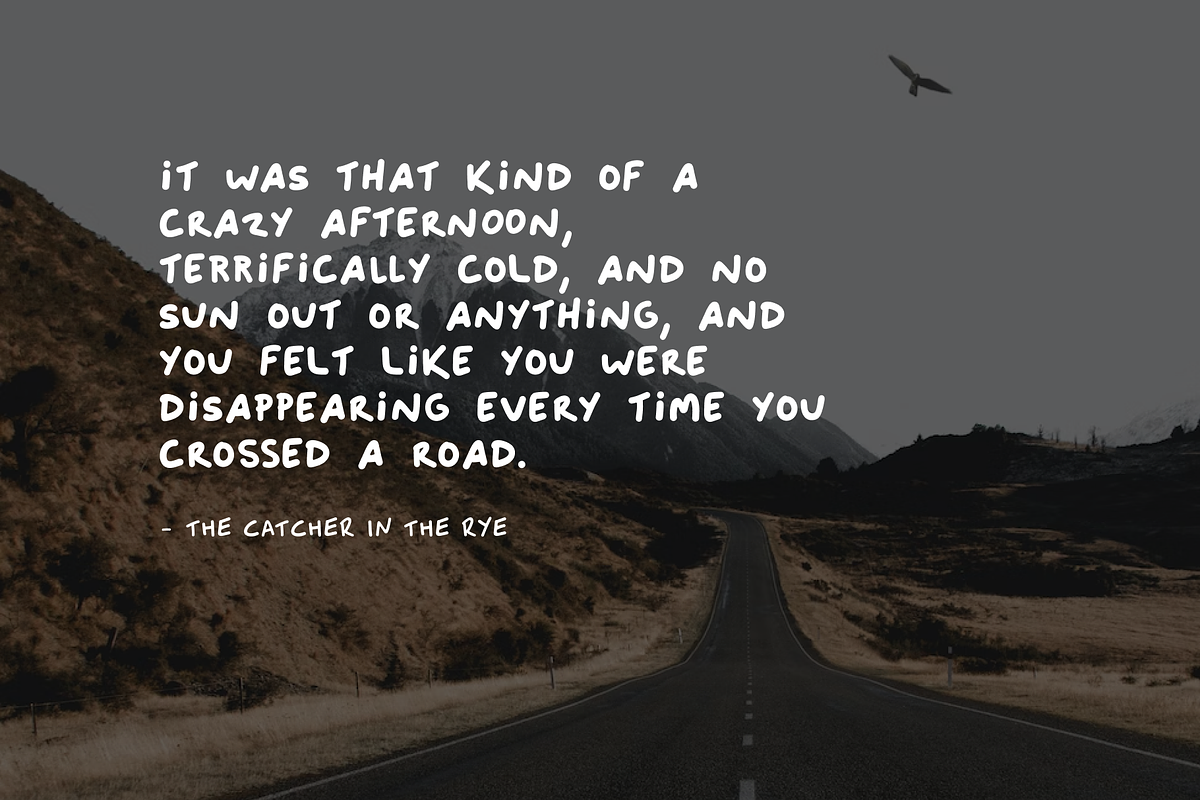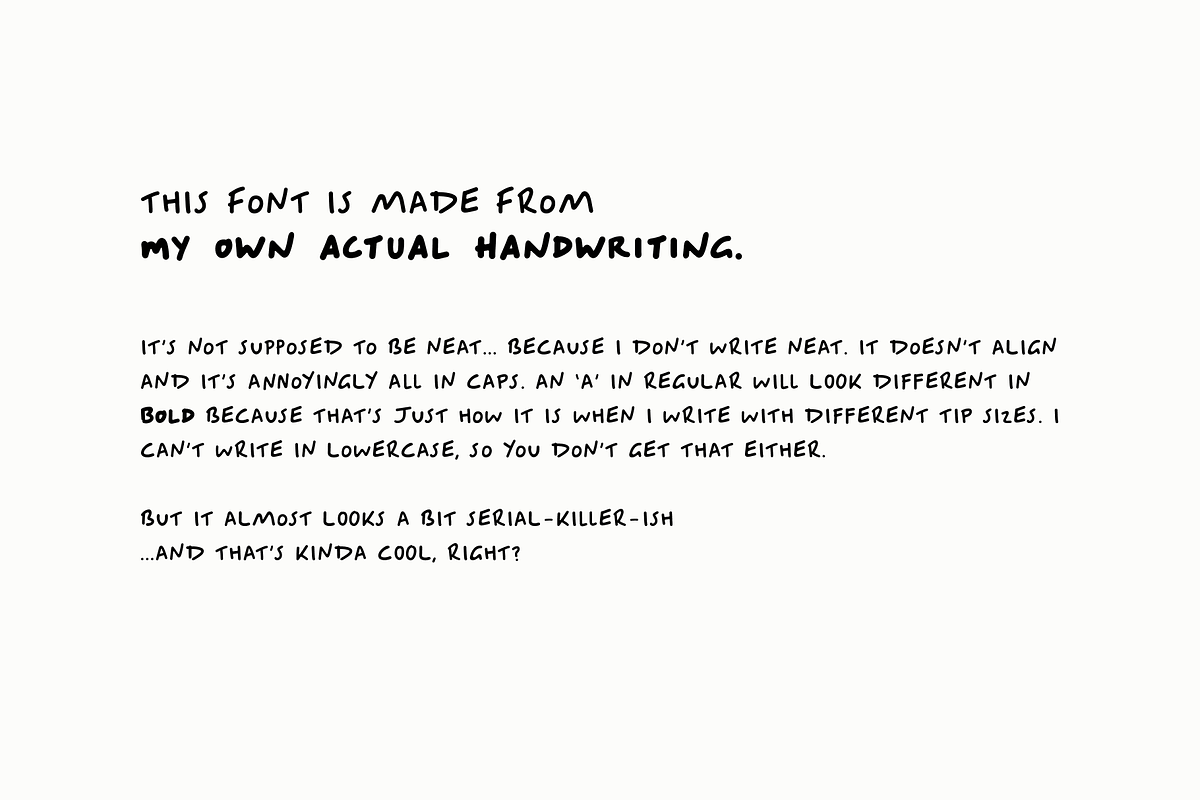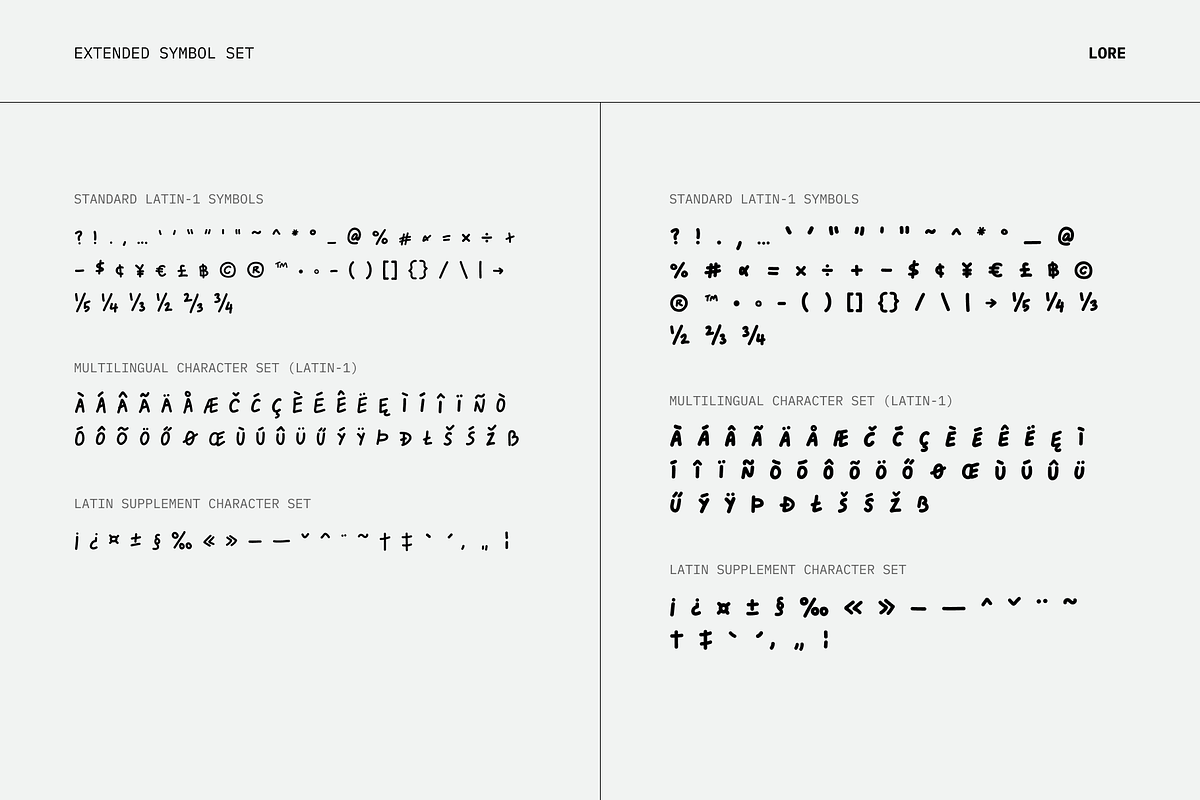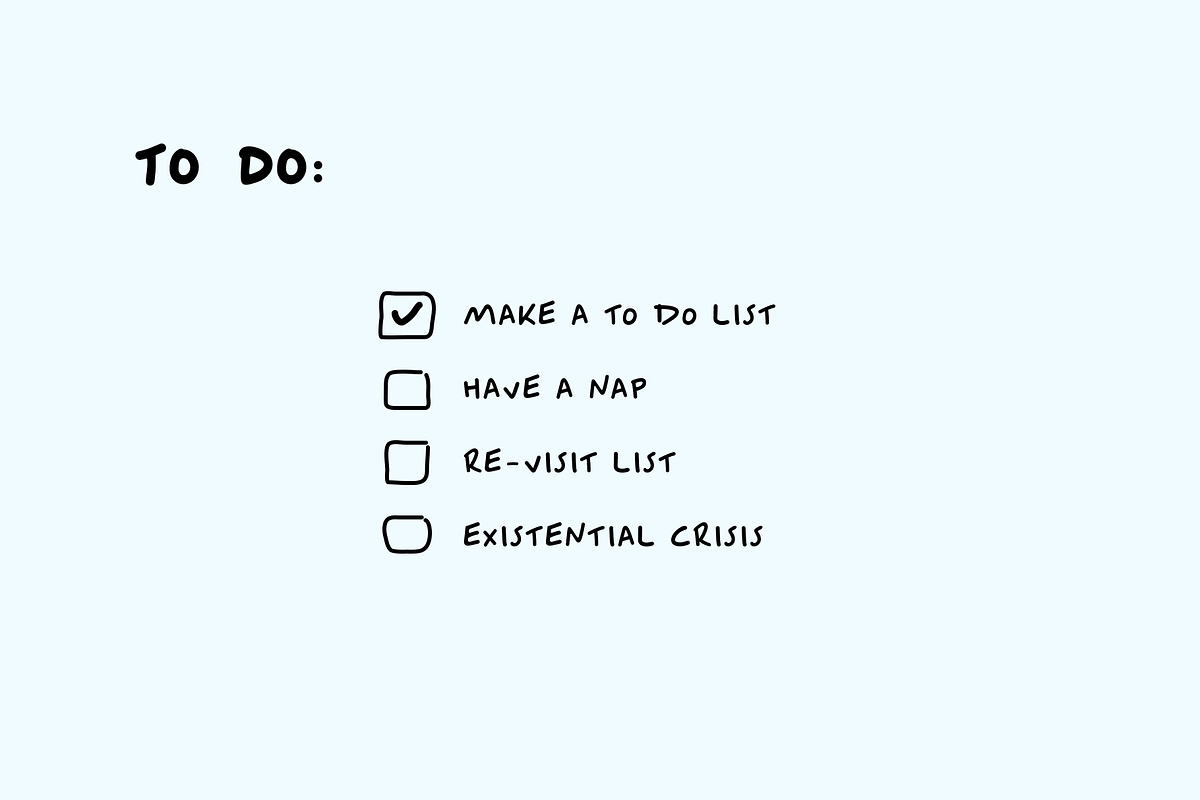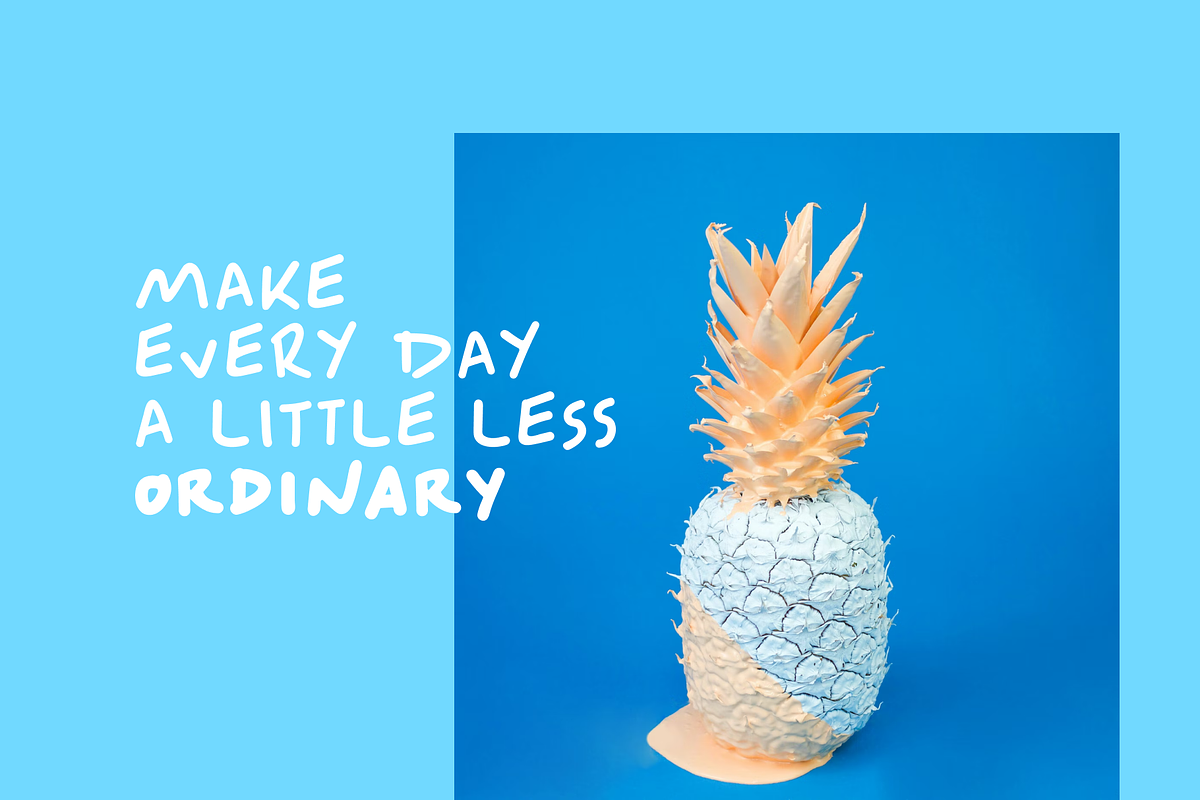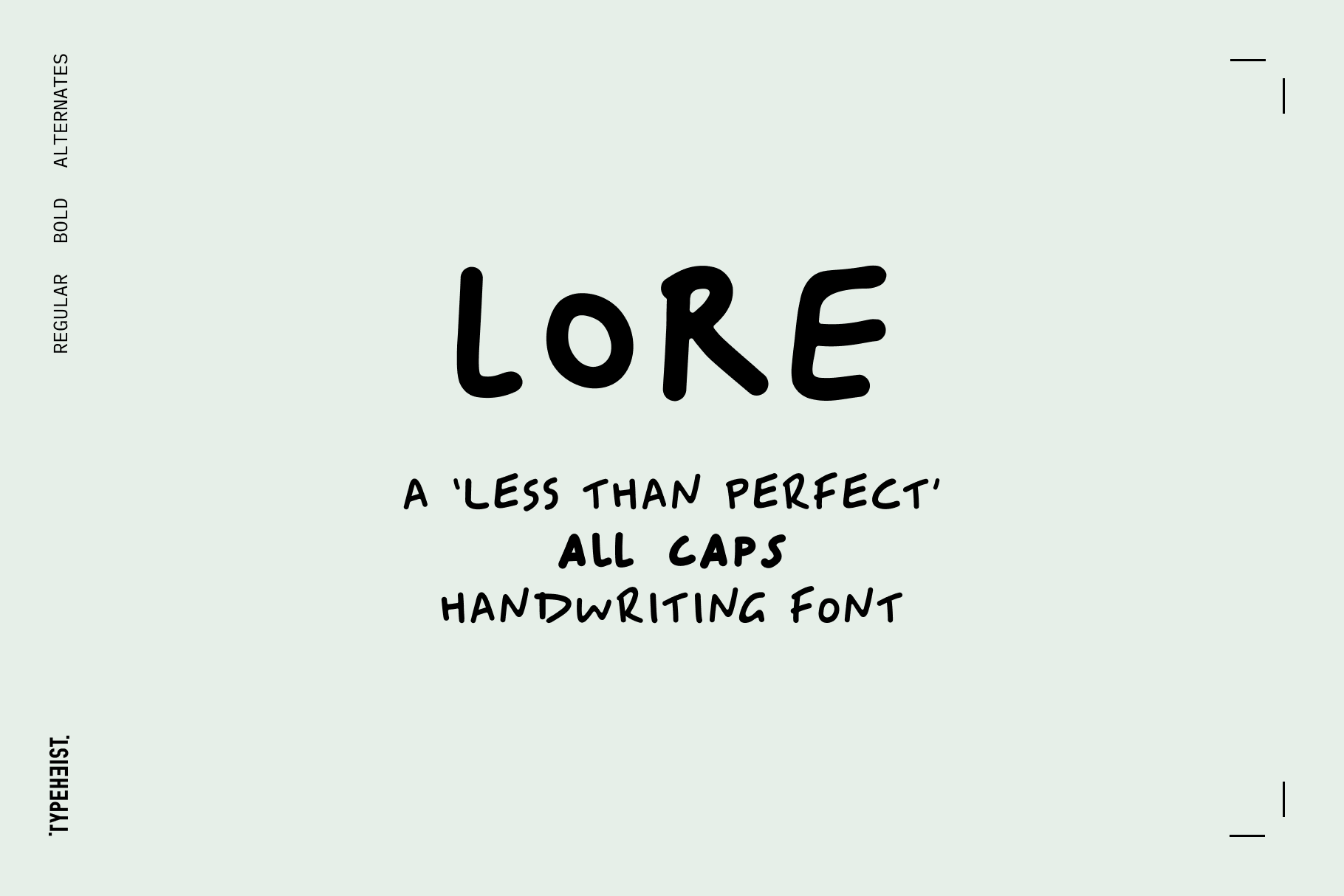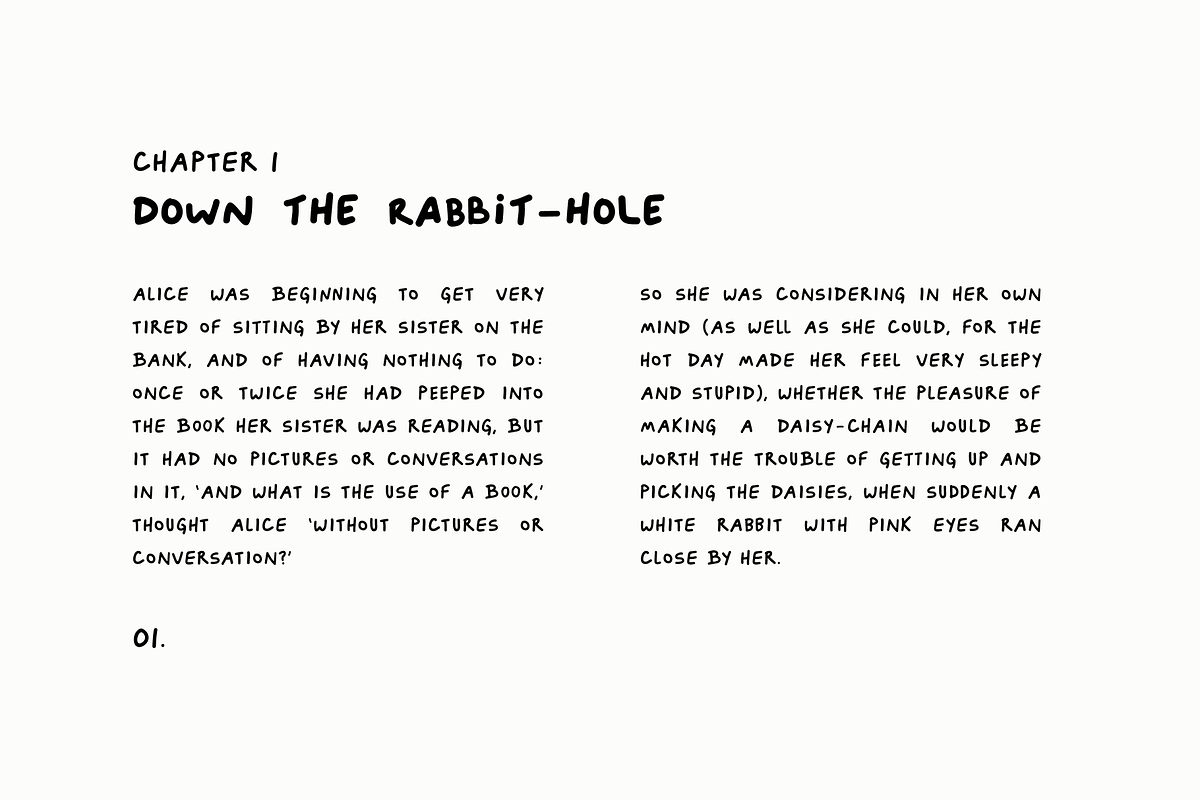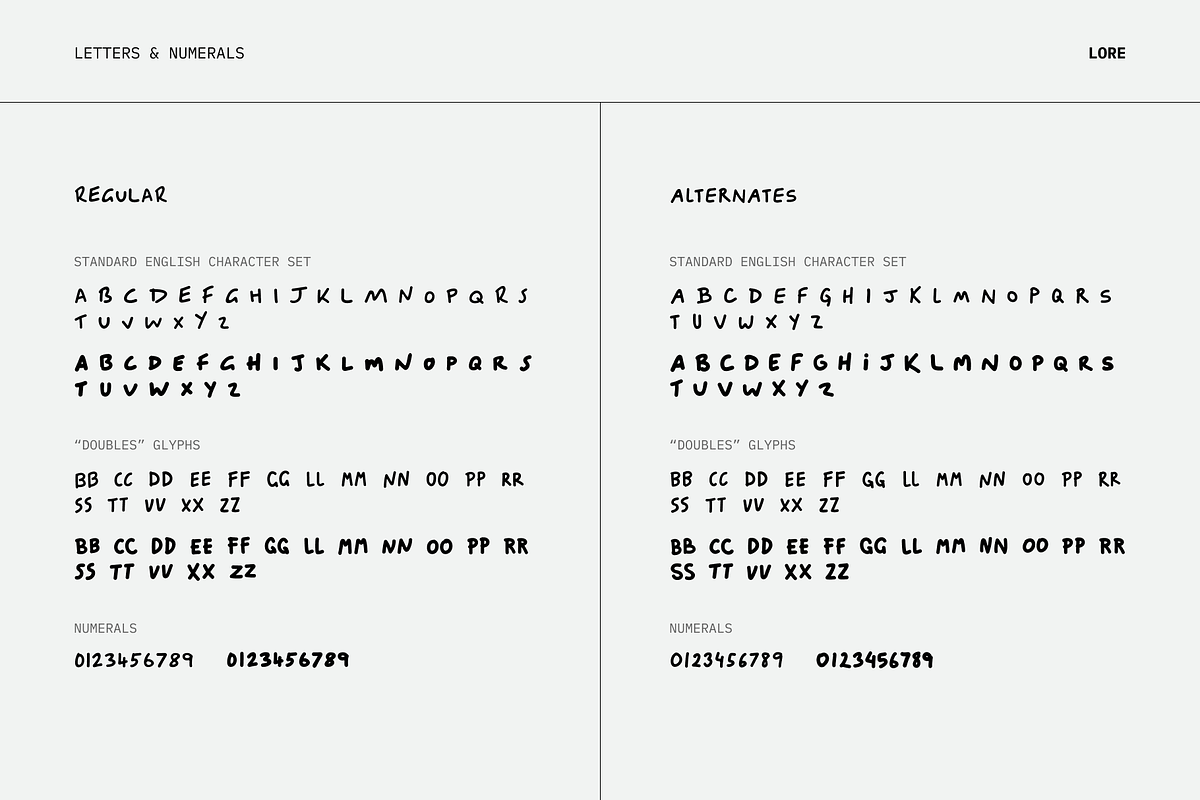
LORE All Caps Handwritten Font
A 'less than perfect' all caps handwriting font.
This is the O.G. font - made from my own actual handwriting. It’s not supposed to be neat... because I don’t write neat. It doesn’t align and it’s annoyingly all in caps (but it's kinda charming right?).